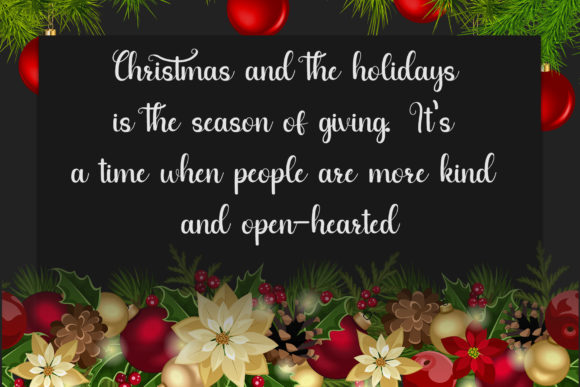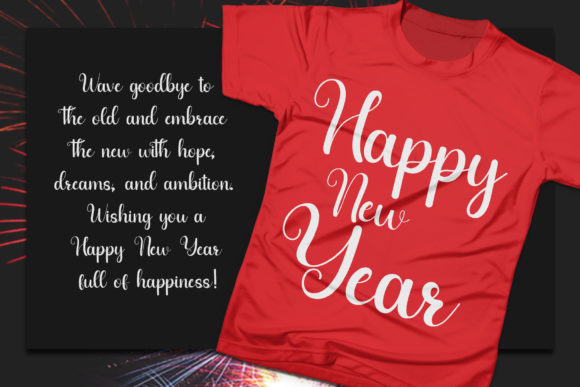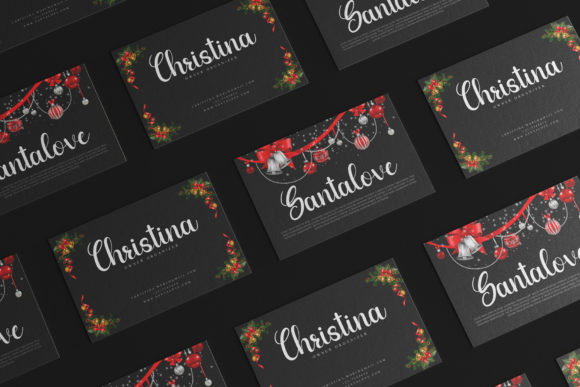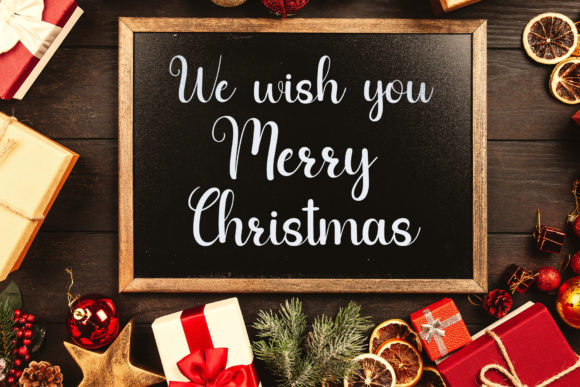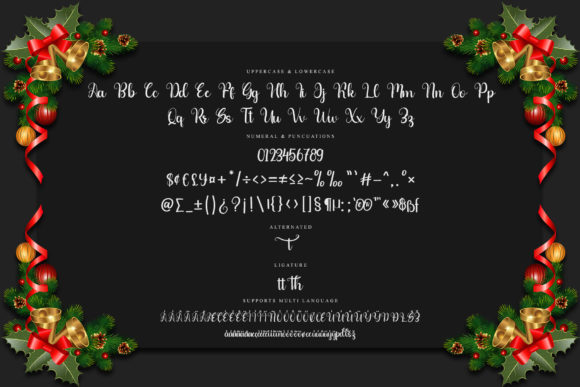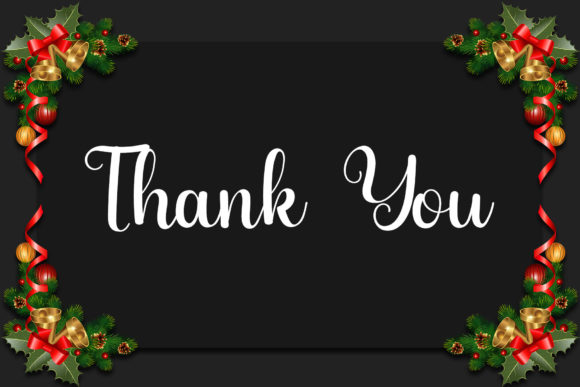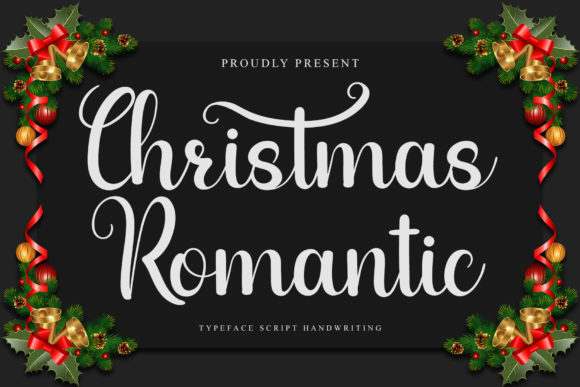
Introducing Christmas Romantic Font: The Perfect Addition to Your Holiday Designs
As the holiday season approaches, designers and crafters are on the lookout for the perfect typography to add a touch of magic to their creations. If you’re searching for a font that exudes romance, playfulness, and festive charm, look no further than the Christmas Romantic Font. This well-balanced script font is designed to make your designs stand out, with its charming and whimsical characters that seem to dance along the baseline.
What Makes Christmas Romantic Font So Special?
Christmas Romantic Font is a unique and eye-catching script font that is sure to capture the essence of the holiday season. Its well-balanced design ensures that each character flows seamlessly into the next, creating a beautiful and harmonious visual effect. The font features:
- Charming and playful characters: Each letter is designed to be distinctive and full of personality, giving your designs a touch of whimsy and fun.
- Well-balanced script: The font’s script is carefully crafted to ensure that each character flows smoothly into the next, creating a beautiful and harmonious visual effect.
- Dancing baseline: The characters seem to dance along the baseline, adding a playful and carefree touch to your designs.
How to Use Christmas Romantic Font in Your Designs
Christmas Romantic Font is perfect for a wide range of design projects, from holiday cards and invitations to social media graphics and website headers. Here are a few ideas to get you started:
- Holiday cards and invitations: Add a touch of romance and whimsy to your holiday cards and invitations with Christmas Romantic Font.
- Social media graphics: Use the font to create eye-catching social media graphics that will stand out in crowded feeds.
- Website headers: Add a festive touch to your website headers with Christmas Romantic Font.
- Crafting projects: Use the font to add a personal touch to your crafting projects, such as handmade cards, gift tags, and decorations.
Tips for Getting the Most Out of Christmas Romantic Font
To get the most out of Christmas Romantic Font, here are a few tips to keep in mind:
- Experiment with different colors: Try pairing the font with different colors to create a unique and eye-catching visual effect.
- Play with font sizes: Experiment with different font sizes to create visual interest and hierarchy in your designs.
- Add decorative elements: Consider adding decorative elements, such as holly leaves or snowflakes, to give your designs an extra touch of festive charm.
Why Designers and Crafters Love Christmas Romantic Font
Christmas Romantic Font has quickly become a favorite among designers and crafters, and it’s easy to see why. The font offers:
- Unique and eye-catching design: The font’s charming and playful characters make it stand out from more traditional fonts.
- Easy to read: Despite its whimsical design, Christmas Romantic Font is easy to read, making it perfect for use in a wide range of design projects.
- Versatile: The font can be used in a wide range of design projects, from holiday cards to website headers.
In conclusion, Christmas Romantic Font is a beautiful and charming script font that is sure to add a touch of magic to your holiday designs. Its well-balanced design, charming characters, and dancing baseline make it the perfect addition to any design project. Whether you’re a designer or crafter, Christmas Romantic Font is a must-have for the holiday season.